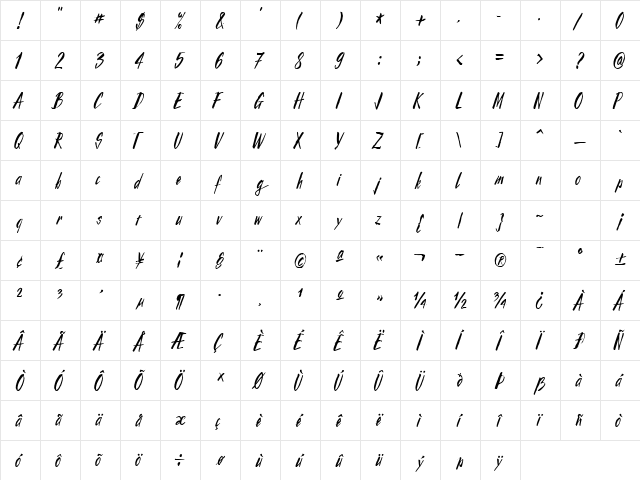
TruncaSSK Regular Free Font
TruncaSSK Regular
TruncaSSK Family
Design Context for TruncaSSK
TruncaSSK is a composed and adaptable typeface that performs quietly and consistently across a wide range of design contexts.